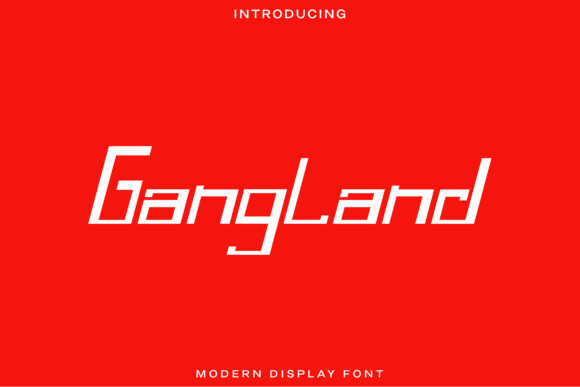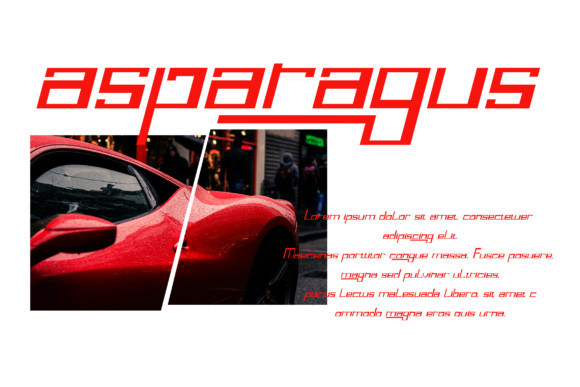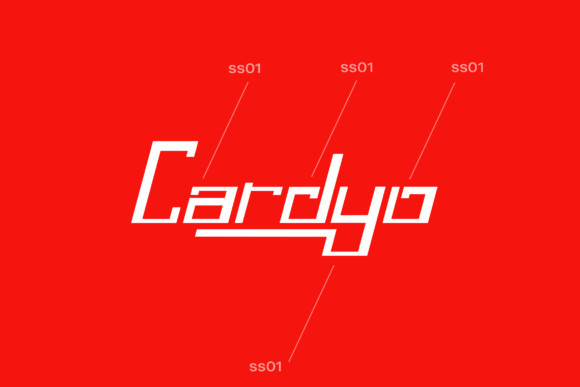
Gangland Font
Gangland is a modern and fresh display font. This font is ideal for racing or sporting events, or nearly anything that has to do with speed or power. Have fun with this beautiful font and explore its endless variation.